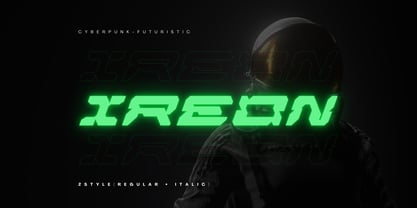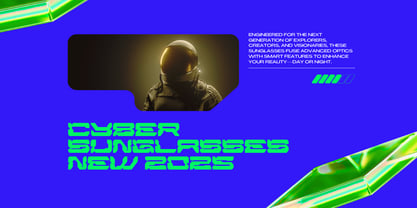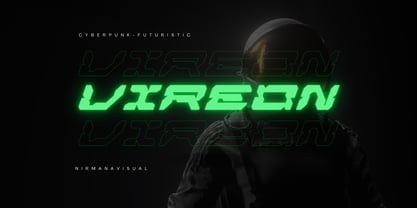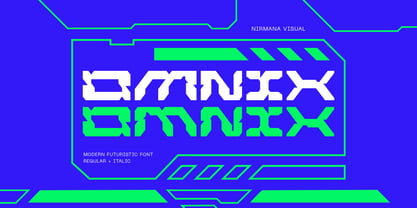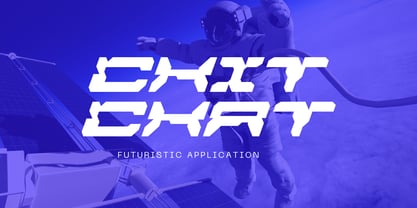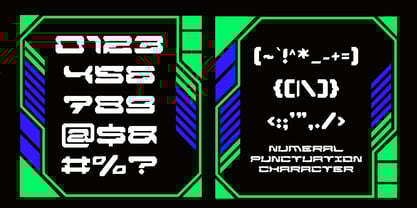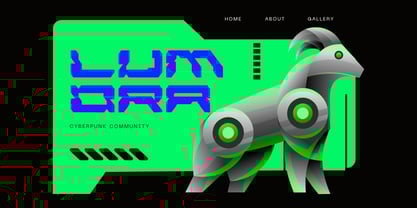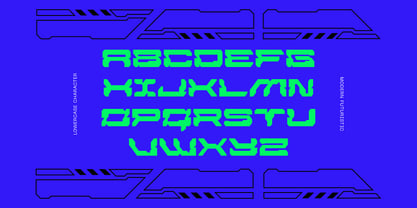
Ireon
by Nirmana Visual
Ireon is a cyberpunk futuristic font that blends sharp geometric lines with sleek curves, creating a modern, high-tech aesthetic. Perfect for sci-fi interfaces, tech branding, and gaming titles, Ireon offers both Regular and Italic styles to enhance visual impact. Its bold, angular design evokes neon-lit cityscapes and digital worlds, making it ideal for projects that demand a cutting-edge, dystopian flair.